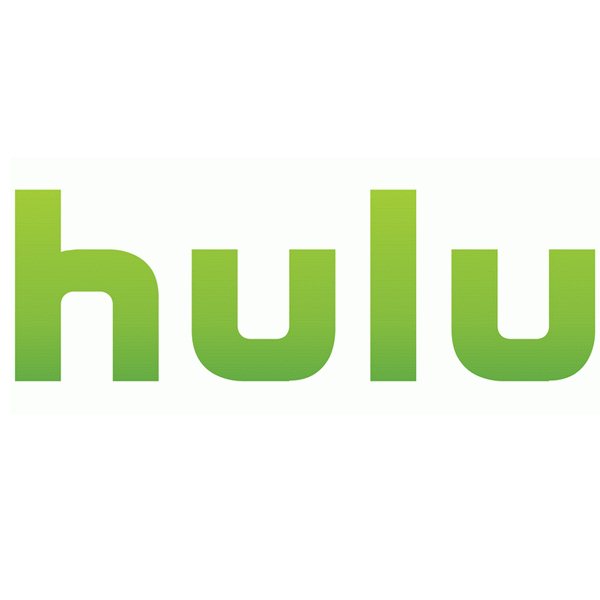
Hulu Font
The logo of Hulu consists solely of its logotype in a green hue, featuring a font that resembles Futura Md BT. You can view and purchase the font here.